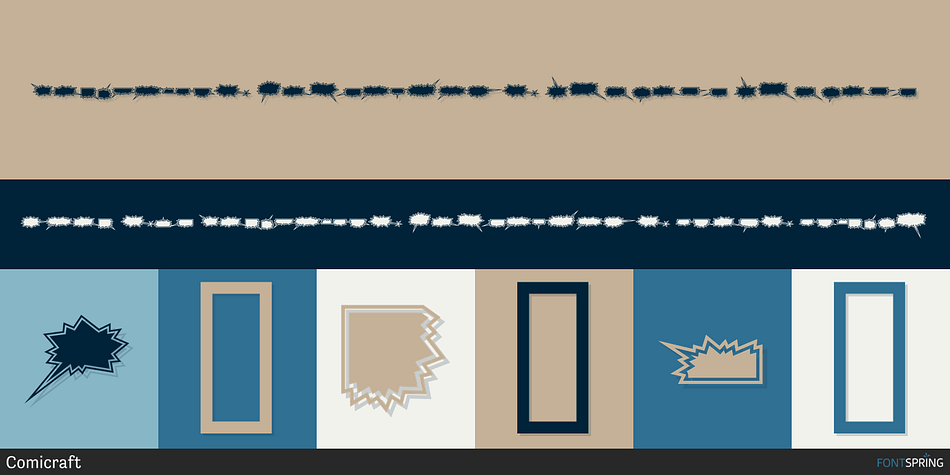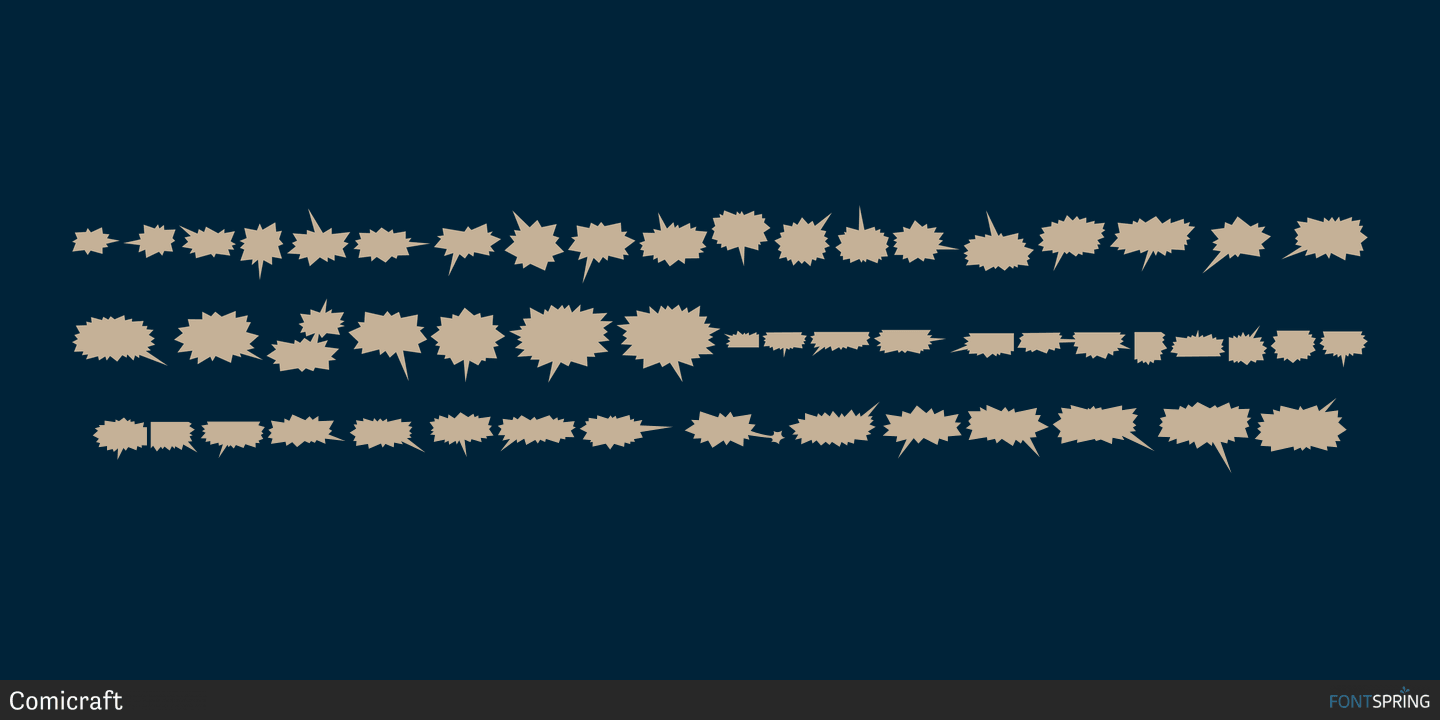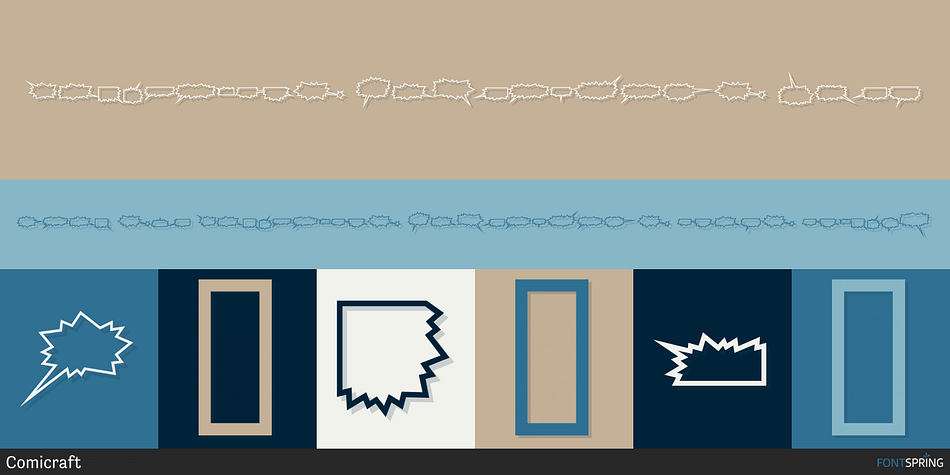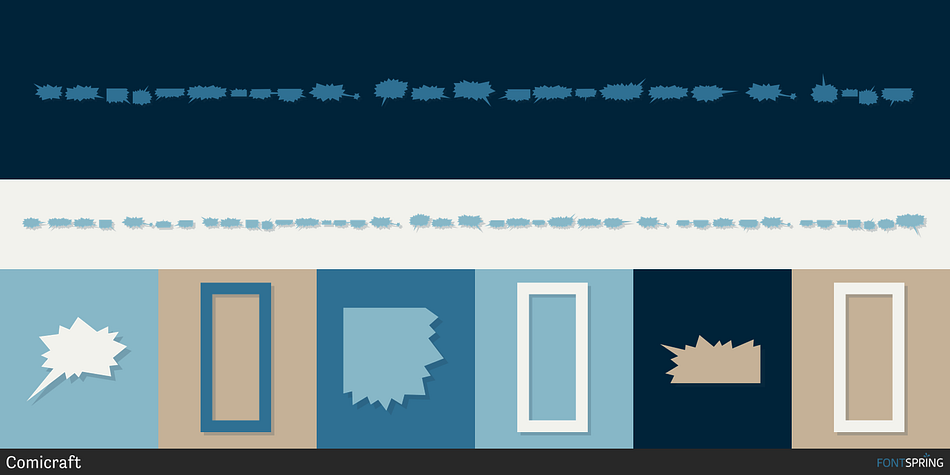
Designed by John Roshell, Comicraft Powerburst is a comic and dingbat font family. This typeface has two styles and was published by Comicraft.
Your characters aren’t merely angry—something else informs their monologues, something powerful and demanding. Their pronouncements bristle with power and energy, much like the cosmic gloves they wear on their clenched fists! Their words are laced with contempt and anger, and their enemies stand in awe of these Titans as they deliver their condemnations of all mankind, because their balloons are sharp, spiky and dangerous to touch!
Apply ComicraftPowerburst to fill your comics with passion, tension or an insane desire to TAKE OVER THE WORLD!